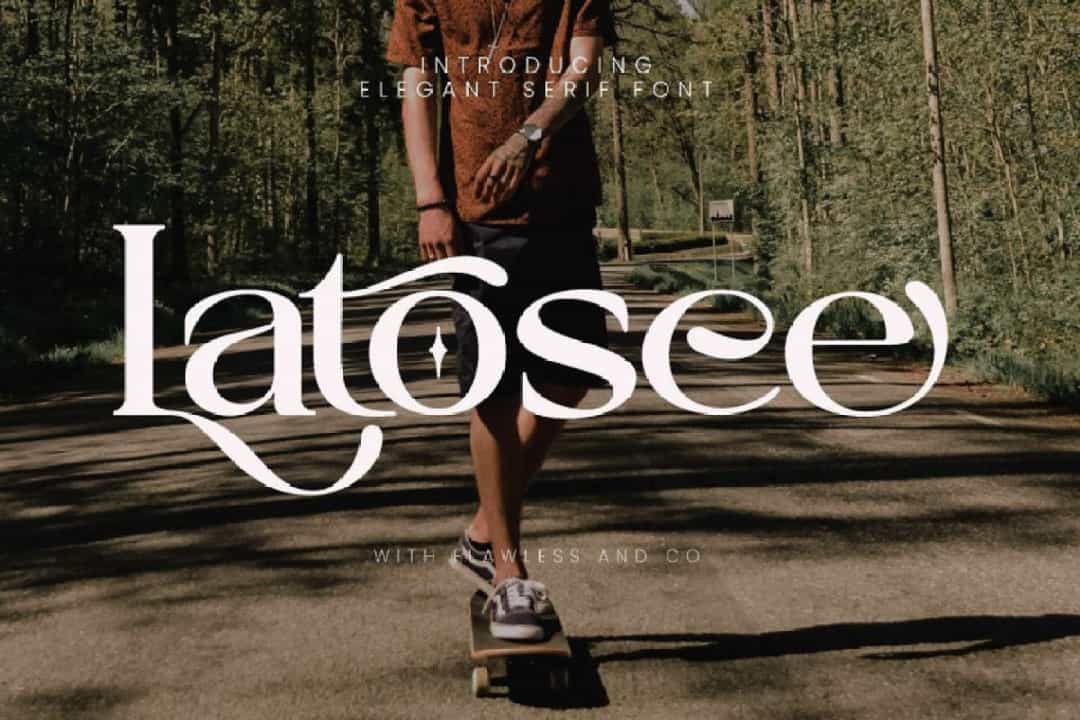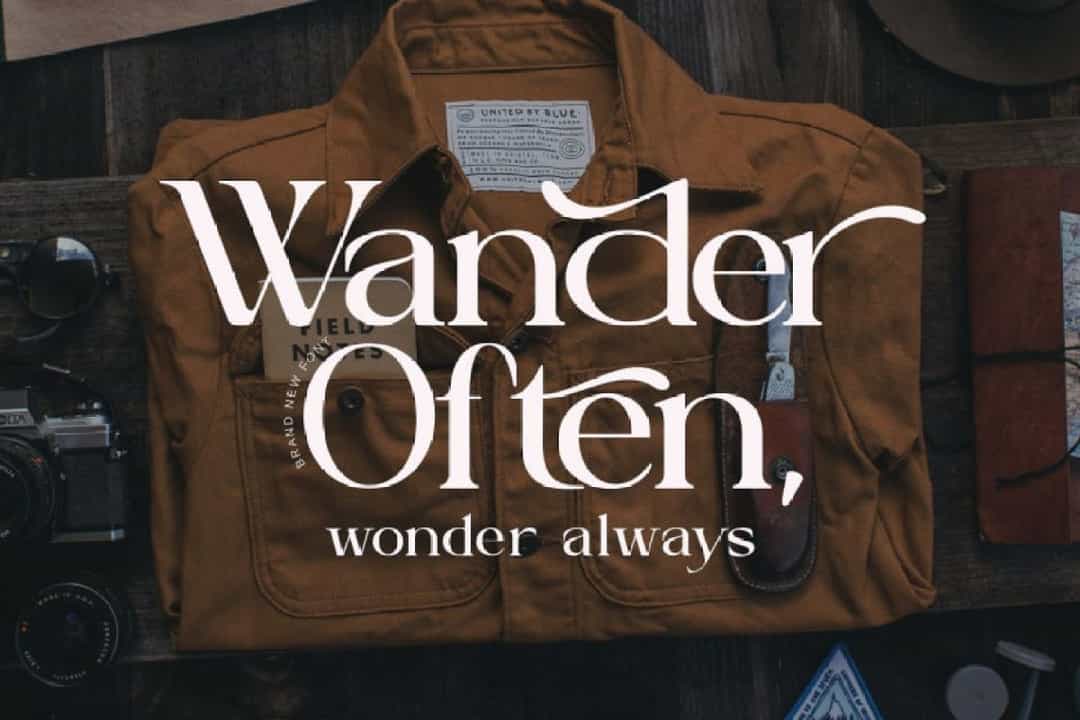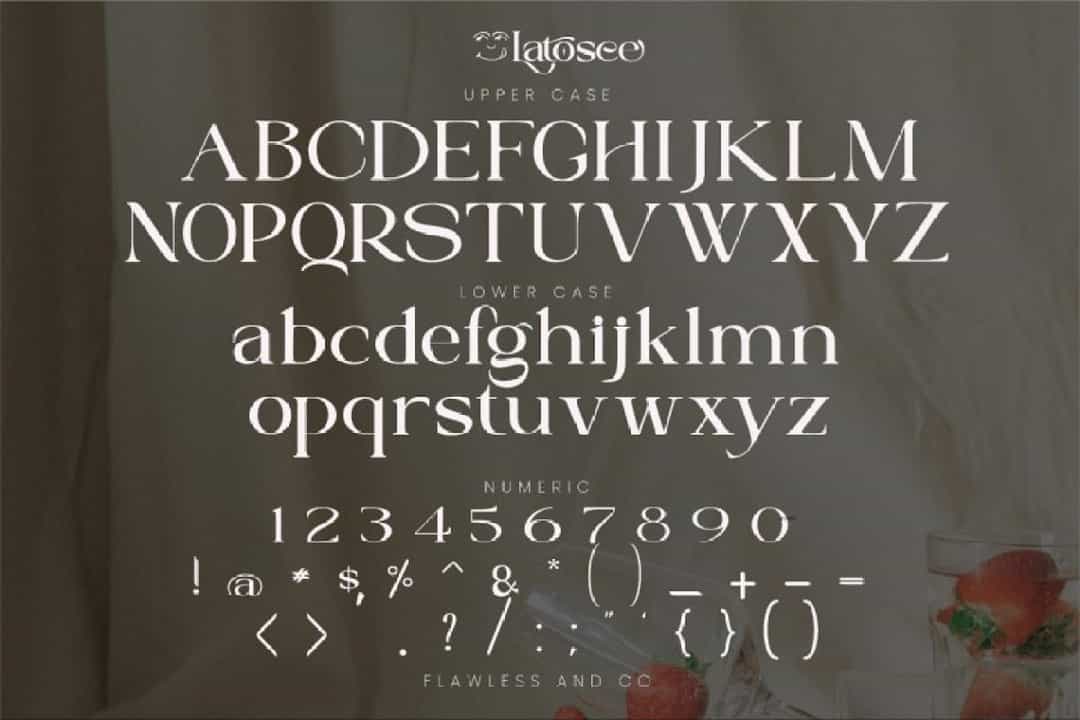
Discover Latosce Font, part of the Serif collection—a versatile and unique font perfect for adding a personal touch to your projects. Download it for free and enjoy crafting designs with style, from invitations to social media posts. This font is available exclusively for personal use, giving you the freedom to create without limits. Unlock your creativity with Latosce Font today!
Launch Your Journey of Timeless Elegance with “Latosce,” An Elegant Serif Font. Take the first step toward timeless elegance by using “Latosce,” a refined serif font which effortlessly marries classic and modern elements for timeless sophistication.